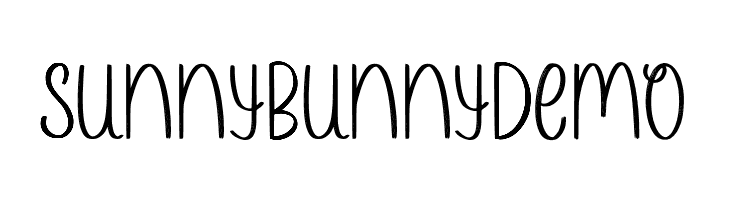
A playful, hand-drawn font with tall, narrow letters and a whimsical style.
A playful, handwritten font with tall, narrow letters and a casual style.